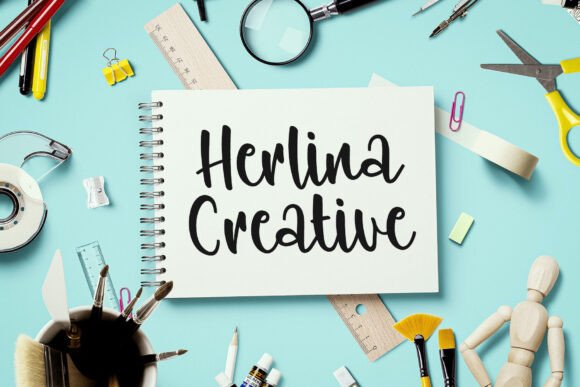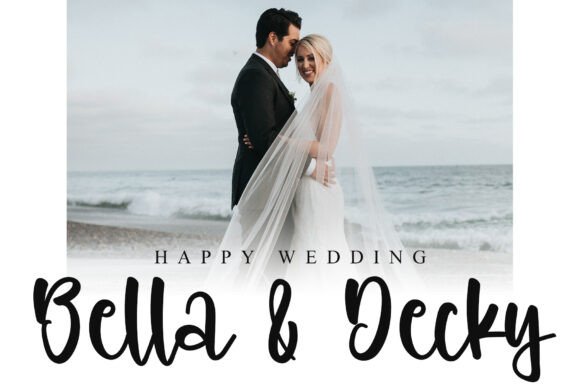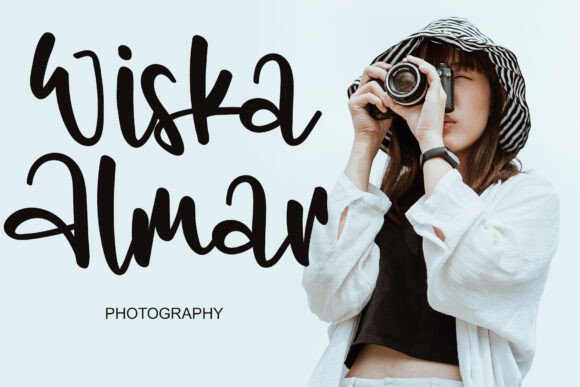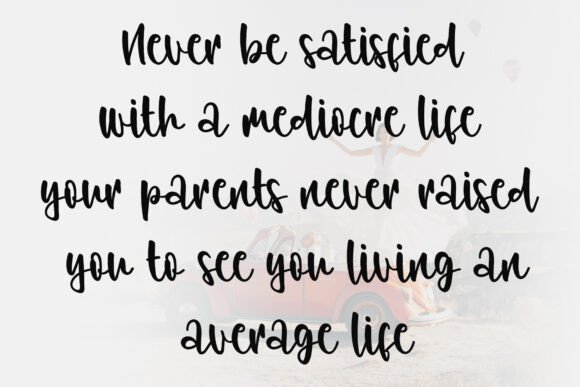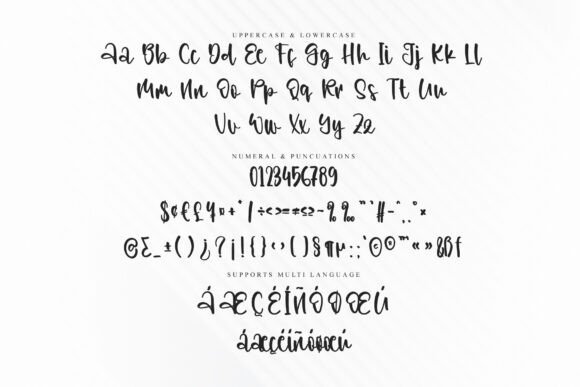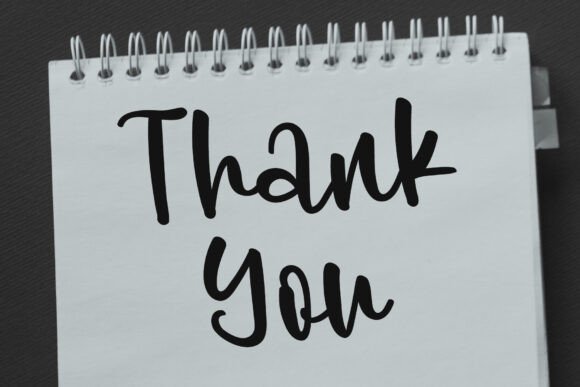
Introduction to Mother Everday Font
As designers, we’ve all been there – staring at a blank canvas, trying to capture the essence of a brand or a message. It’s in these moments that the right font can make all the difference. For me, it’s the moment when I’m designing a new logo for a client, and I stumble upon a font that perfectly encapsulates their personality. It’s a feeling that’s hard to describe, but it’s a mix of excitement and relief, knowing that I’ve found the perfect tool for the job. And that’s exactly what the Mother Everday Font offers – a sense of relief and excitement, knowing that you’ve found a high-quality design resource that will elevate your creative project.
The Mother Everday Font is a beautifully crafted script handwriting font that exudes warmth and personality. With its flowing, organic strokes, it’s perfect for adding a personal touch to your designs. Whether you’re designing a cozy café logo, a heartfelt greeting card, or stylish packaging, this font brings a level of sophistication and elegance that’s hard to find in other fonts. And the best part? It’s available for free download, making it a valuable resource for designers of all levels.
Key Features of Mother Everday Font
- High-quality, unique font design ideal for creative projects and personal use.
- Features a clean, elegant design with a medium size (around 200-300 KB in file size) and high resolution (up to 300 DPI).
- Designed to be highly legible and versatile, making it suitable for a wide range of creative projects, from print to digital media.
- Perfect for those looking for a unique, high-quality font to add a touch of personality to their designs.
Honest Review: Mother Everday Font
I recently stumbled upon the Mother Everday Font, and I have to say, it’s a game-changer for any creative project. The font itself is a high-quality, elegant script that adds a touch of sophistication to any design.
The font’s transparent background makes it incredibly versatile, allowing designers to easily layer it over any color or image without worrying about a distracting background. I’ve used it for a number of projects, from branding to editorial design, and it always looks great.
- High-quality, elegant script design
- Works well for a variety of creative projects
- ⚠️ Not suitable for small text sizes (can be difficult to read)
Overall, I’m really impressed with the Mother Everday Font. It’s a valuable addition to any designer’s toolkit, and I highly recommend it for any creative project. With its high-quality design and transparent background, it’s sure to elevate any design to the next level.
The Mother Everday Font is perfect for a variety of creative projects, including graphics, logos, and presentations. It’s a free download and a valuable design resource for any designer or artist. Use it to create high-quality designs with a transparent background and make your project stand out.